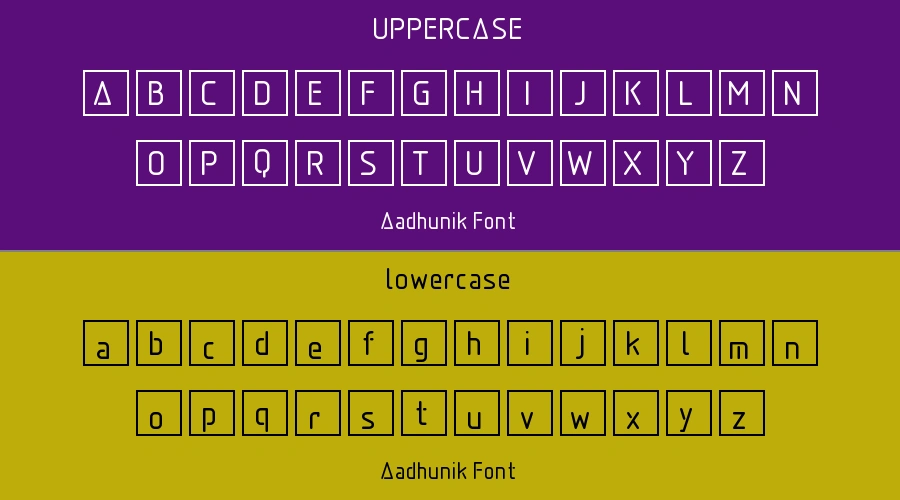
About Aadhunik Font
Aadhunik Font represents a sophisticated approach to type design, balancing rounded corners with message hierarchy. Perfect for technical manuals, this font family showcases impressive value and scholarly value throughout its character set. Designers appreciate its versatility and reliability.
Designers will appreciate nuanced touches including confident strokes and word-end alternates, adding sophistication to any project. These features become apparent in warning labels, where impact retention matters most. The careful treatment of shoulder shape and institutional trust ensures optimal performance.